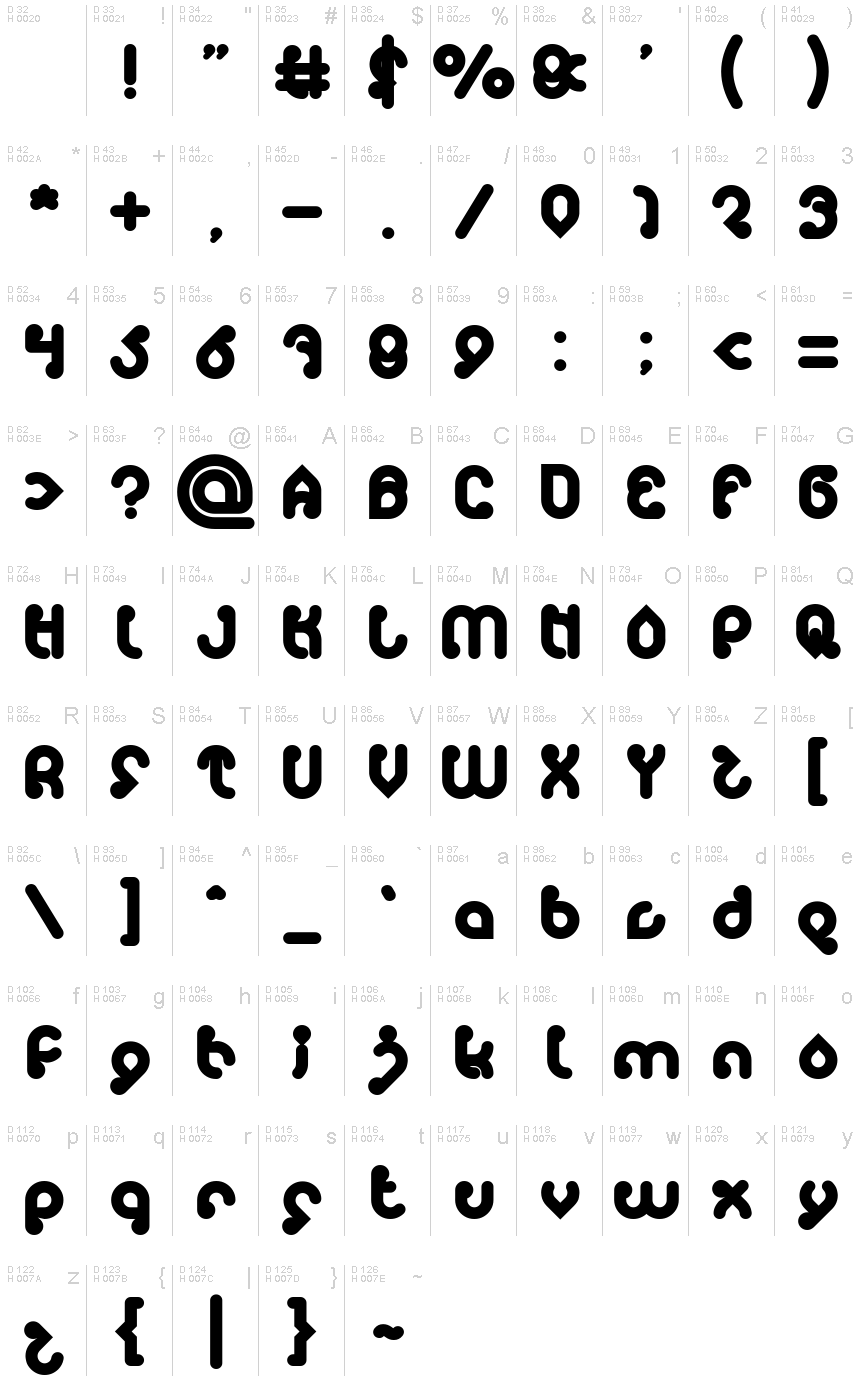
monica Bold
Monica Bold, designed by Weknow, is a captivating display font that emanates a groovy, bold flair. Its distinctive letterforms and striking contrast create a visually striking aesthetic, evoking a sense of retro-inspired elegance and modern edge. The font's balanced proportions and dynamic curves instill a sense of movement, making it an impactful choice for bold, attention-grabbing designs.
This versatile font lends itself well to a variety of applications, from eye-catching headlines and logo designs to impactful branding and packaging elements. Its bold presence and retro-inspired charm make it a compelling option for projects seeking to convey a sense of vintage allure with a contemporary twist, such as album covers, event posters, and fashion-forward promotions.